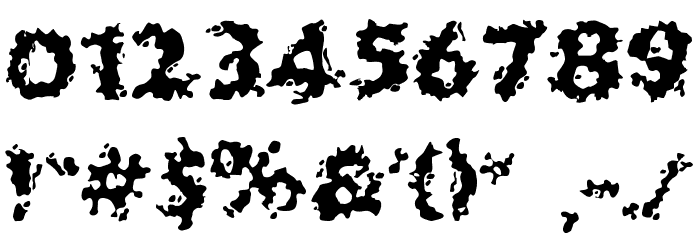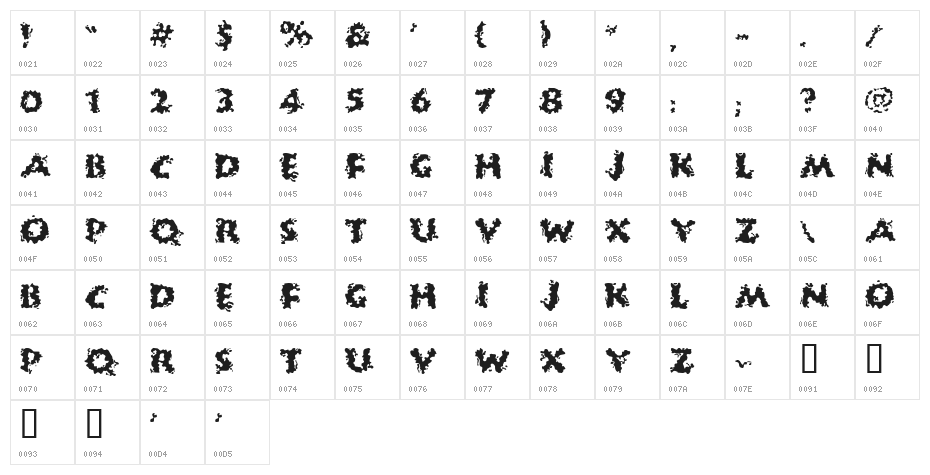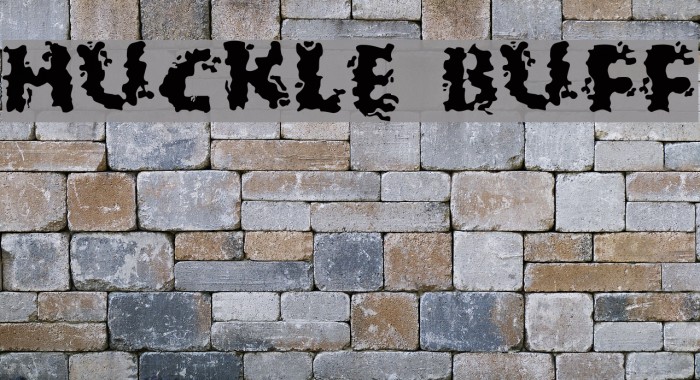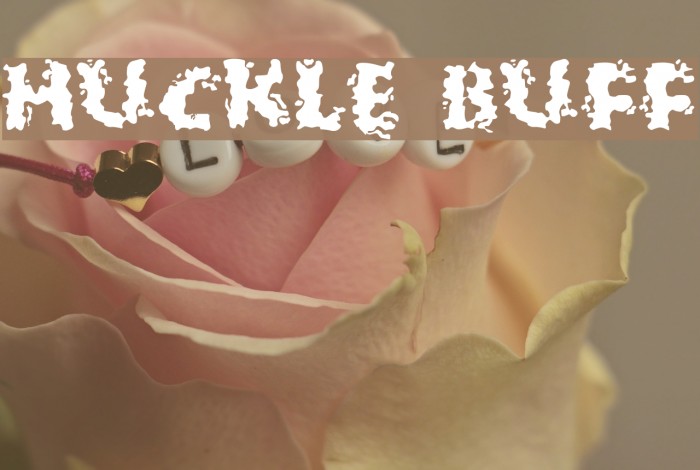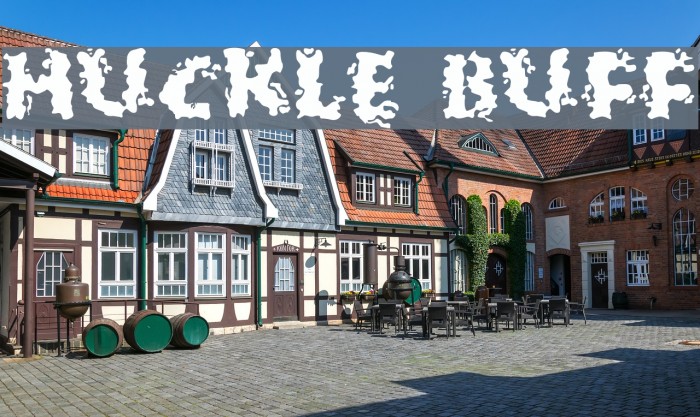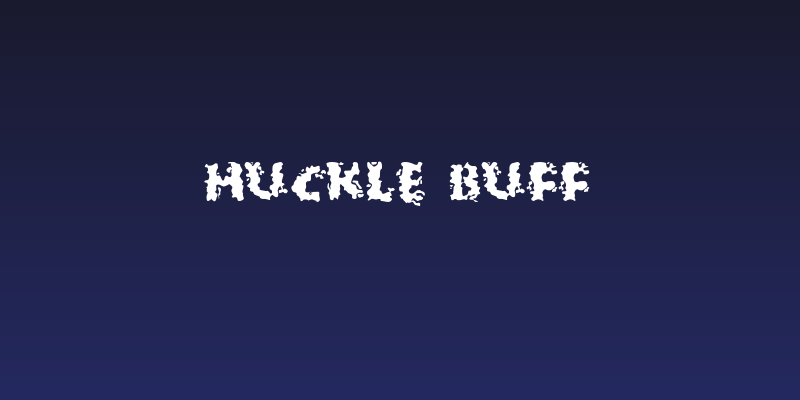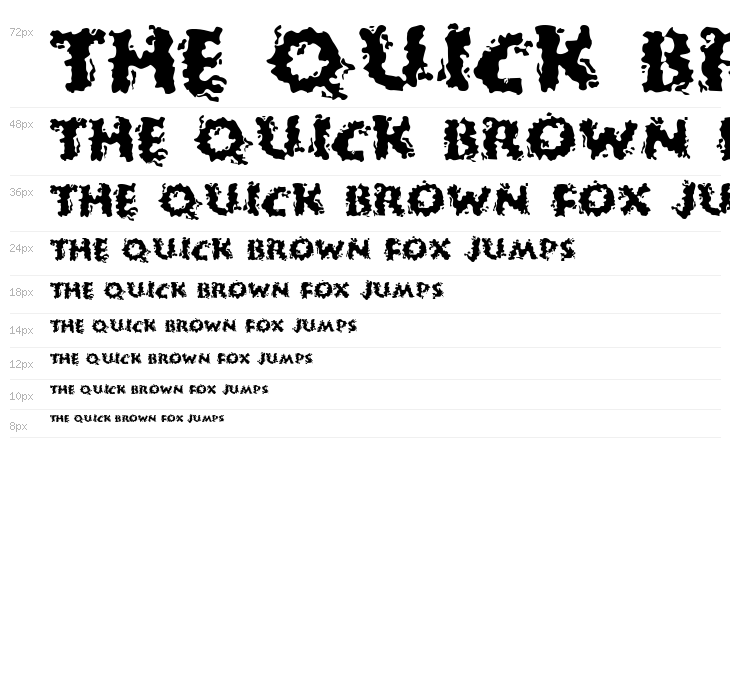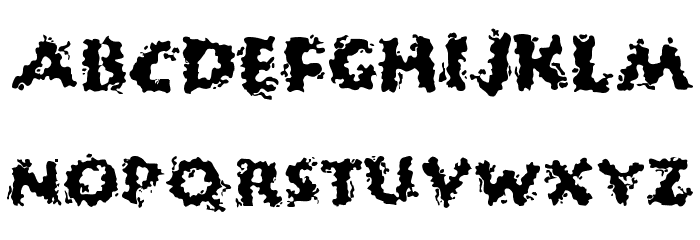
Huckle Buff Font
Huckle Buff Description
This font features a highly decorative and organic style, with characters that appear to be formed from splatters or ink blots. The edges are irregular and jagged, giving it a dynamic and chaotic appearance. Each letter and number is unique, with varying levels of detail and complexity, making it stand out in any design. The font's boldness and intricate design make it suitable for eye-catching headlines or artistic projects. Its playful yet edgy style can add a creative touch to posters, album covers, or Halloween-themed graphics.
| Proposed Projects | Ideal for posters, album covers, Halloween-themed graphics, and artistic projects. |